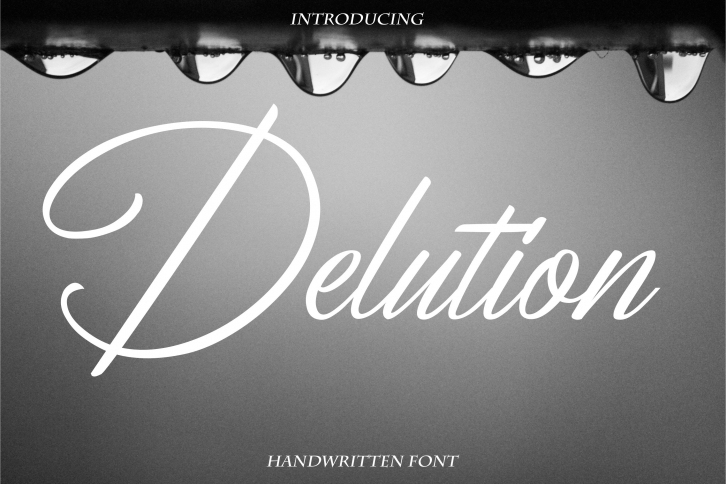
Delution is an elegant and stylish script font. It is PUA encoded which means you can access all of the glyphs and swashes with ease! Add it confidently to your projects, and you will love the results.